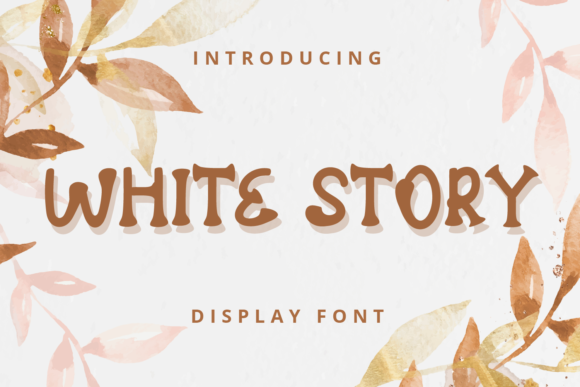
**White Story: The Spooktacular Font for Your Halloween Designs**
Unleash your creativity and bring a touch of eerie elegance to your Halloween projects with White Story, the captivating display font from Planetz Studio. This meticulously crafted font boasts intricate details and a playful spirit, making it the perfect choice for creating spine-tingling designs that are sure to leave a lasting impression.
White Story's unique style adds an aura of mystery and intrigue to any project. Its flowing curves and sharp edges evoke a sense of the supernatural, making it ideal for creating Halloween posters, invitations, social media graphics, and website designs, whether you're a seasoned designer or just starting.
With White Story, your Halloween creations will stand out from the crowd. Its versatility allows you to experiment with different colors, effects, and backgrounds to achieve the perfect spooky ambiance. Let your imagination run wild and create designs that will send shivers down your spine.
**Key Features :**
* Enchanting display font perfect for Halloween-themed designs
* Exquisitely drawn characters with intricate details
* Wide range of applications, including posters, invitations, and website designs
* Easy to customize with different colors and effects
Step into the realm of the supernatural with White Story, and let your Halloween designs take on a life of their own. Embrace the haunting beauty of this font and create unforgettable visuals that will leave your audience spellbound.